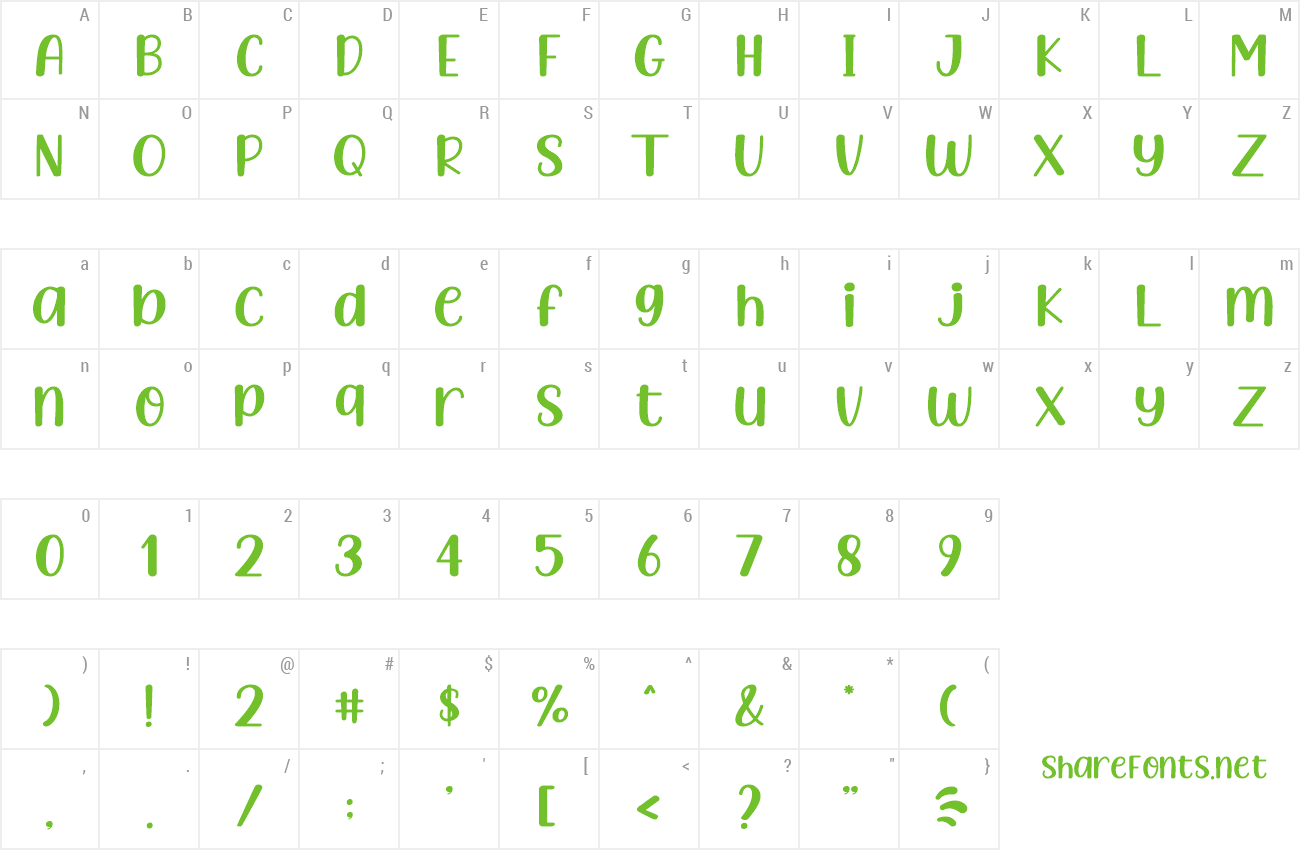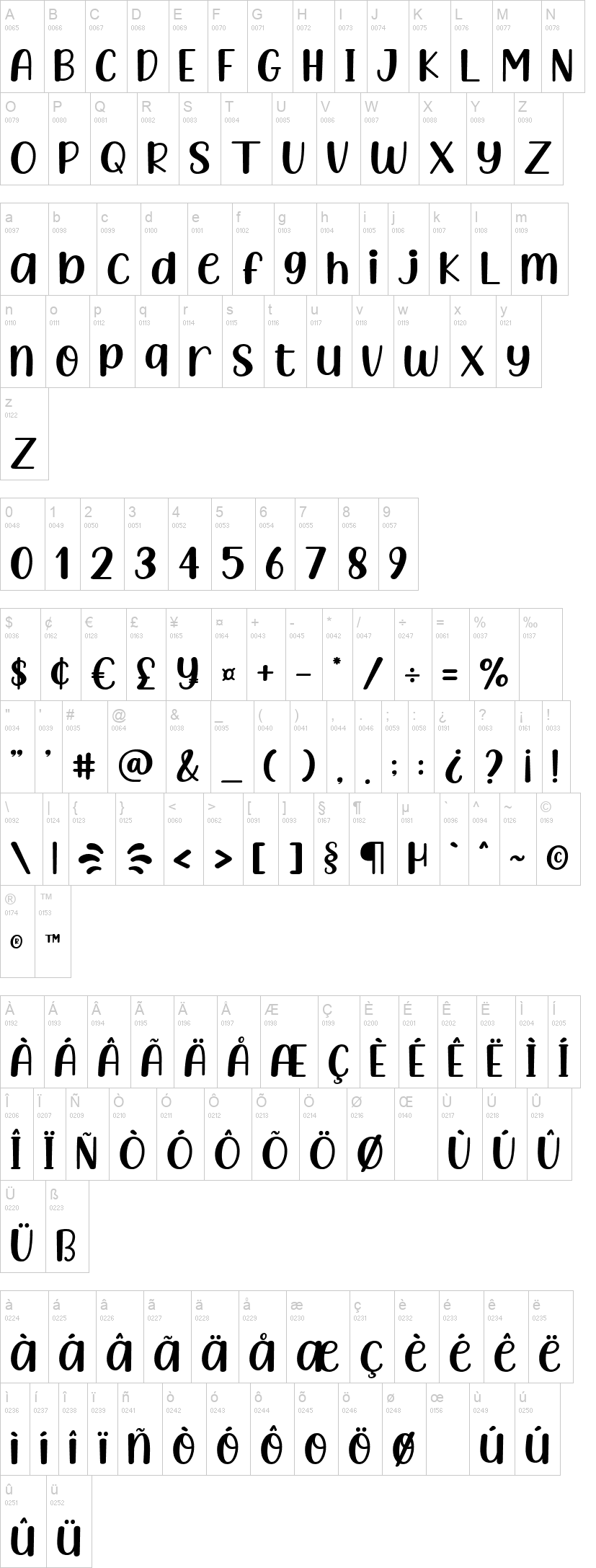
Milky Road Font
Milky Road Font - Web milky road font download | milkyroad is a cute and simple handwritten font. Votes, rated based on results identification. Its trendy feel makes this font incredibly versatile,. Milky road € by dav studio.
Votes, rated based on results identification. Its trendy feel makes this font incredibly versatile,. Milky road € by dav studio. Web milky road font download | milkyroad is a cute and simple handwritten font.
Milky road € by dav studio. Votes, rated based on results identification. Web milky road font download | milkyroad is a cute and simple handwritten font. Its trendy feel makes this font incredibly versatile,.
Votes, rated based on results identification. Milky road € by dav studio. Web milky road font download | milkyroad is a cute and simple handwritten font. Its trendy feel makes this font incredibly versatile,.
Milky road € by dav studio. Its trendy feel makes this font incredibly versatile,. Web milky road font download | milkyroad is a cute and simple handwritten font. Votes, rated based on results identification.
Milky road € by dav studio. Its trendy feel makes this font incredibly versatile,. Votes, rated based on results identification. Web milky road font download | milkyroad is a cute and simple handwritten font.
Milky Road
Its trendy feel makes this font incredibly versatile,. Web milky road font download | milkyroad is a cute and simple handwritten font. Votes, rated based on results identification. Milky road € by dav studio.
Milky road € by dav studio. Web milky road font download | milkyroad is a cute and simple handwritten font. Votes, rated based on results identification. Its trendy feel makes this font incredibly versatile,.
Its trendy feel makes this font incredibly versatile,. Web milky road font download | milkyroad is a cute and simple handwritten font. Milky road € by dav studio. Votes, rated based on results identification.
Votes, rated based on results identification. Web milky road font download | milkyroad is a cute and simple handwritten font. Milky road € by dav studio. Its trendy feel makes this font incredibly versatile,.
Its trendy feel makes this font incredibly versatile,. Milky road € by dav studio. Votes, rated based on results identification. Web milky road font download | milkyroad is a cute and simple handwritten font.
Milky road € by dav studio. Its trendy feel makes this font incredibly versatile,. Web milky road font download | milkyroad is a cute and simple handwritten font. Votes, rated based on results identification.
Its trendy feel makes this font incredibly versatile,. Web milky road font download | milkyroad is a cute and simple handwritten font. Milky road € by dav studio.